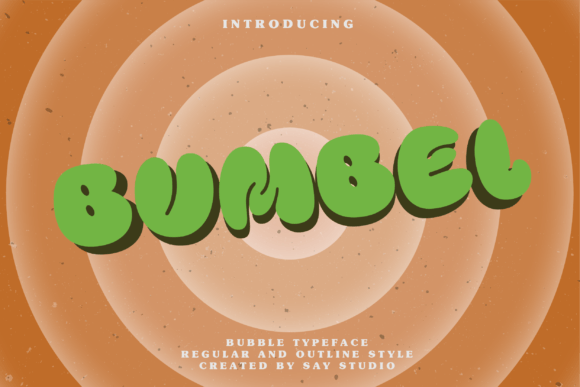
Bumbel Font
**Introducing the extraordinary Bumbel Font: Your Ticket to Captivating Visuals**
Unleash the power of Bumbel Font, a groundbreaking display typeface that will transform your designs into captivating masterpieces. This innovative font draws inspiration from the effervescent energy of bubbles, infusing your creations with a vibrant and playful aesthetic.
**A Symphony of Style for Modern Designs**
Bumbel Font is meticulously crafted to meet the demands of contemporary design. Its unique character set dances across the screen, exuding a sense of fun and spontaneity. Whether you're creating eye-catching logos, alluring social media posts, or dynamic website headers, Bumbel Font will add an irresistible touch of whimsy to your every project.
**Small Display, Big Impact**
For those seeking fonts that pack a punch in limited spaces, Bumbel Font is your perfect ally. Its compact design shines in small display applications, ensuring that your messages stand out with maximum impact. From captivating app icons to engaging social media tiles, Bumbel Font will make sure your content gets noticed.
**A Stroke of Genius from SayStudio**
Bumbel Font is the brainchild of SayStudio, a renowned foundry celebrated for its exceptional fonts. Their passion for typography is evident in every curve and stroke of Bumbel Font, ensuring that your designs will exude originality and style.
**Embark on a Visual Adventure with Bumbel Font**
Don't settle for ordinary fonts that blend into the background. Embrace the extraordinary with Bumbel Font. Its vibrant energy, playful spirit, and exceptional readability will elevate your designs to new heights.